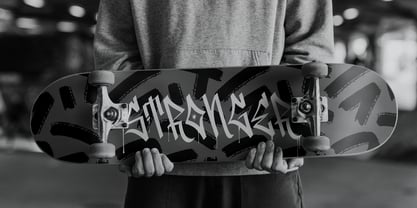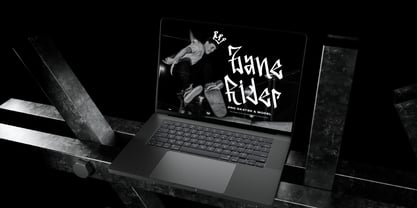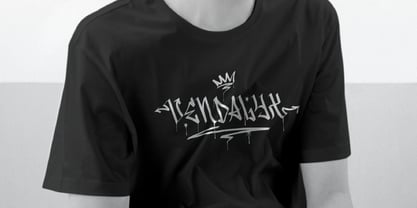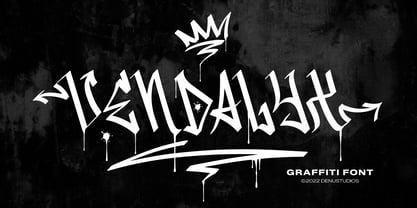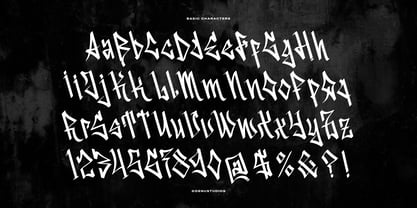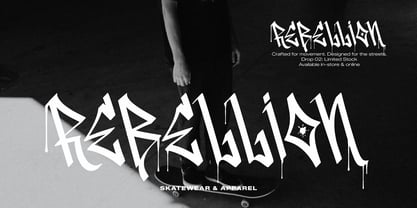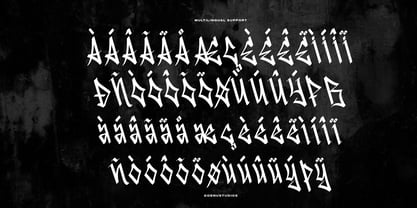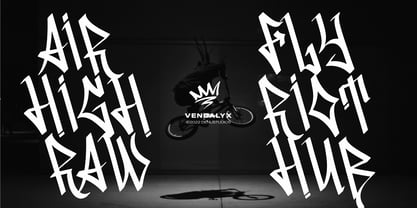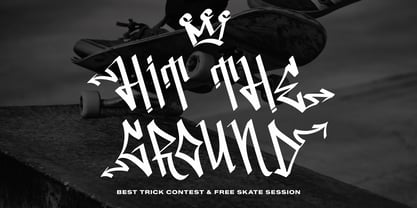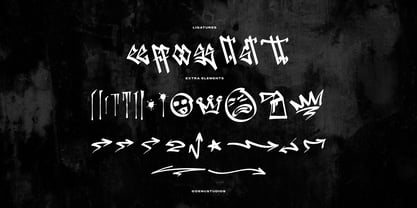
Vendalyx
por Denustudio
La familia tipográfica Vendalyx fue diseñada por Dede Nugraha y publicada por Denustudio. Vendalyx contiene 1 estilos. Más información sobre esta familia
Vendalyx | Graffiti Font, from Denustudios, suitable for any projects such as: logos, branding projects, homeware designs, product packaging, mugs, quotes, posters, shopping bags, t-shirts, book covers, name card, invitation cards, greeting cards, label, photography, watermark, special events, and all your other lovely projects that need Graffiti a taste.